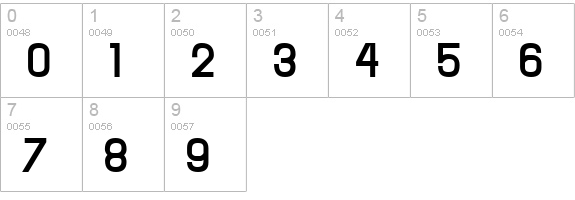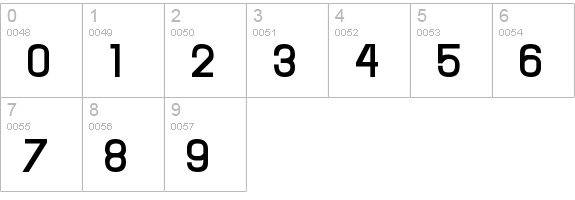
Hallandale Text Bold JL Font Details
Hallandale Text Bold JL is a strong, high-contrast variant in the Hallandale typeface family \xE2\x80\x94 well suited to headlines, attention-grabbing titles, and strong calls-to-action.
Hallandale Text Bold JL font is a stunningly bold and eye-catching typeface that is perfect for adding a touch of elegance and sophistication to any design project. The strong and sturdy letterforms of this font exude confidence and make a bold statement. The Hallandale Text Bold JL font is versatile and can be used in a variety of design applications, including headlines, logos, posters, and more. Its clean and modern design ensures that it will stand out and grab attention, while still remaining legible and easy to read. One of the best things about the Hallandale Text Bold JL font is that it is free to download. That's right, you can get your hands on this amazing font without having to spend a dime. Simply visit FontsMarket.com and you can easily download this font and start using it in your design projects. Whether you're a professional designer looking to add a touch of elegance to your work, or a casual user who wants to create stunning visuals, the Hallandale Text Bold JL font is a must-have. Download it for free at FontsMarket.com and take your designs to the next level.